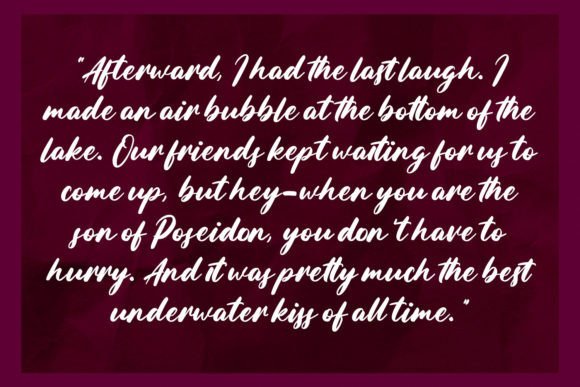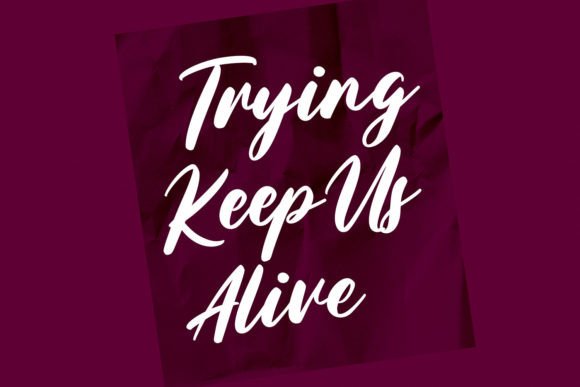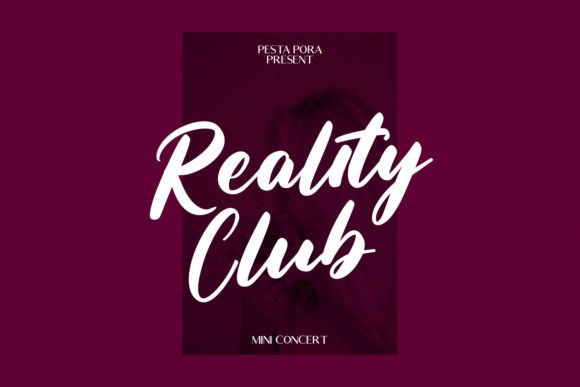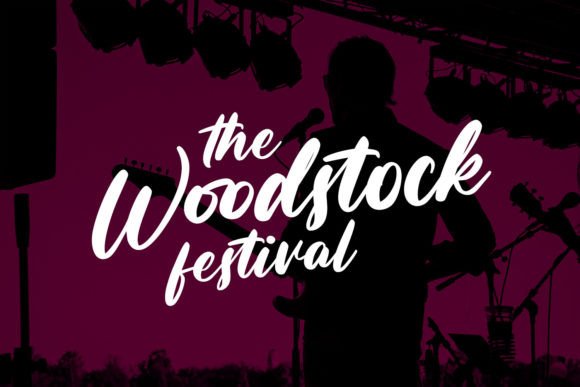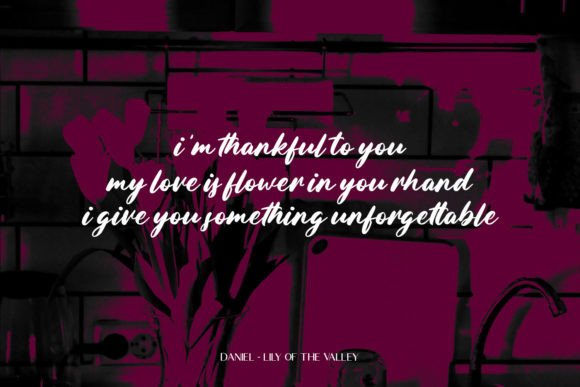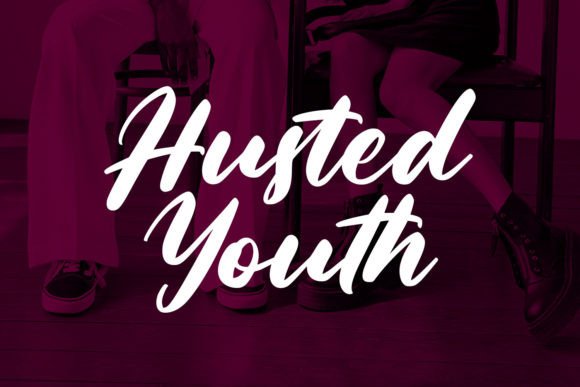
The Perfect Touch: Unveiling Castrela Font
There’s nothing quite like the rush of inspiration that comes with staring at a blank canvas, waiting for the perfect idea to strike. For designers, this moment is a thrill that never gets old – and it’s often the spark that sets off a creative chain reaction. What happens next is a whirlwind of imagination, experimentation, and bringing a concept to life.
When it comes to giving your projects that extra oomph, a beautiful font can be the game-changer you need. That’s where Castrela Font comes in – a flowing handwritten font that exudes elegance and sophistication. Perfect for adding a personal touch to your designs, Castrela Font is a timeless choice that will leave a lasting impression.
For designers, the value of Castrela Font lies in its versatility and charm. Whether you’re working on a branding project, creating a wedding invitation, or crafting a social media post, this font is sure to elevate your design and leave a lasting impression.
Castrela Font Key Features
- Unique Characteristics: Castrela Font features a unique blend of modern and traditional elements, with intricate details and ornate flourishes.
- Style Variations: Castrela Font comes in various styles, including Regular, Italic, Bold, and Bold Italic, offering flexibility for designers.
Castrela Font Review
I recently had the chance to work with the Castrela Font, and I have to say it’s a mixed bag. Here’s my honest review.
- The Castrela Font has a unique and elegant feel to it. It’s perfect for creating a sophisticated and high-end look for your design projects.
- The font is highly legible, even at smaller font sizes, making it ideal for body text and other situations where readability is key.
- The Castrela Font has a wide range of weights and styles available, giving you plenty of options to choose from depending on your design needs.
- The Castrela Font can feel a bit overused in some situations, particularly in the tech industry where it’s been used extensively.
- The font’s elegance can sometimes come across as pretentious or overly formal, which may not be suitable for all design projects.
- The Castrela Font may not be the best choice for display headings or titles, as it can feel a bit too plain in those situations.
Overall, I think the Castrela Font is a solid choice for designers who want to create a sophisticated and high-end look. While it may have some limitations, its unique feel and high legibility make it a great option for many design projects.
Getting the Most Out of Castrela Font
To get the most out of Castrela Font, use it for:
- Body text for articles and blog posts
Remember to use Castrela Font consistently throughout your design to create a cohesive look.
Alternatives to Castrela Font
Montserrat is a popular sans-serif font designed by Julieta Ulanovsky. It is suitable for use in headings, titles, and body text, particularly in digital and web design projects. Montserrat is a more geometric and modern font compared to Castrela Font, making it ideal for contemporary designs. When to use: Use Montserrat for modern, clean, and minimalist designs.
Merriweather is a classic serif font designed by Eben Sorkin. It is suitable for use in body text, particularly in print and offline designs. Merriweather is a more traditional and elegant font compared to Castrela Font, making it ideal for formal and sophisticated designs. When to use: Use Merriweather for formal, traditional, and classic designs.
Open Sans is a clean and modern sans-serif font designed by Steve Matteson. It is suitable for use in body text, particularly in digital and web design projects. Open Sans is a more neutral and versatile font compared to Castrela Font, making it ideal for general use in various design projects. When to use: Use Open Sans for clean, simple, and user-friendly designs.